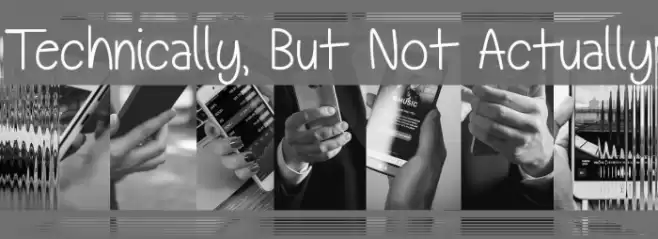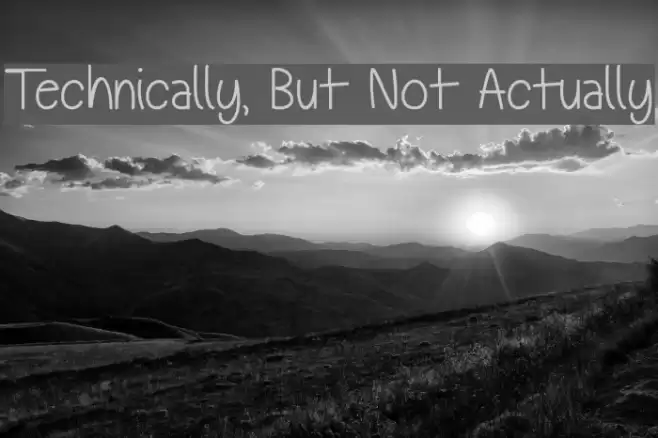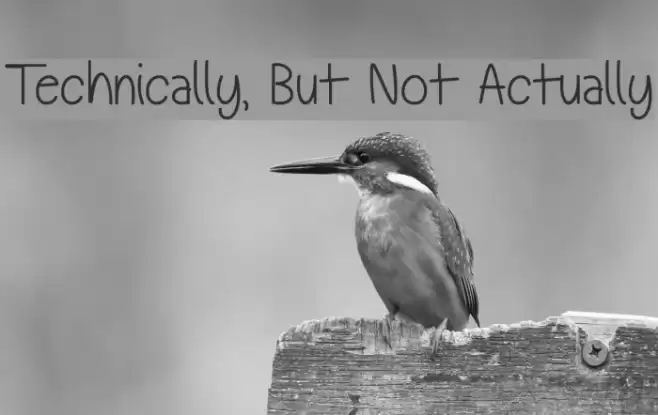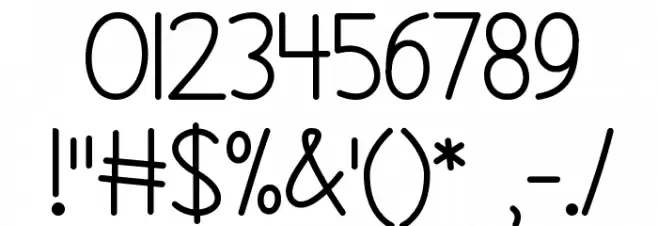
Technically, But Not Actually Font
Technically, But Not Actually Description
This font features a playful and casual handwritten style, characterized by its rounded and slightly irregular letterforms. The uppercase and lowercase letters maintain a consistent flow, with a friendly and approachable appearance. The numerals and special characters complement the overall style, adding to its versatility. The font's informal nature makes it suitable for projects that require a personal touch, such as greeting cards, invitations, or children's book illustrations. Its legibility and charm make it an excellent choice for designs that aim to convey warmth and friendliness.
A playful, casual handwritten font with rounded, irregular letterforms from Uncategorized fonts.
- Proposed Projects: Greeting cards, invitations, children's books, personal branding.
- Overall Style: Casual, Playful
- Use Case: Headlines, Informal text, Creative projects